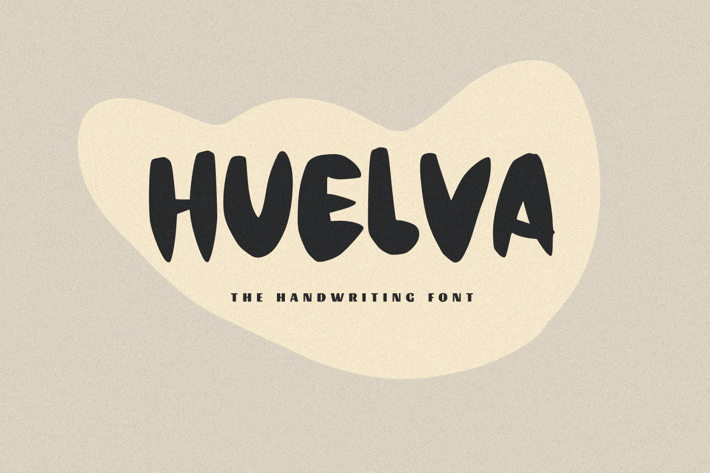
Huelva - A Handwriting Font
Huelva - A Handwriting Font, every single letter has been carefully crafted to make your text looks beautiful. it's perfect for logos, name cards, magazine layouts, invitations, headers, or even large-scale artwork.
- Huelva font including upper & lowercase characters, numerals and more of symbols.